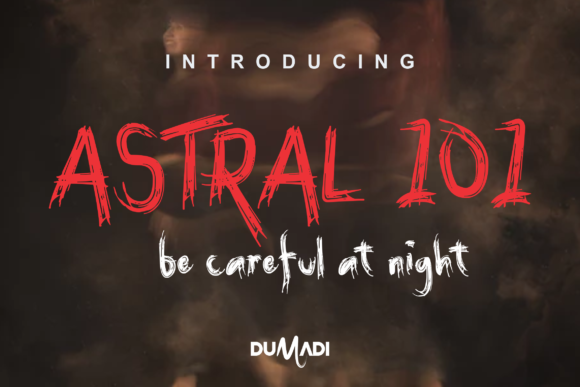
Astral 101 Font: The Spooky Display Font You Need for Your Designs
An Honest Review of Astral 101
• ✨ Spooky and atmospheric: The Astral 101 font has a unique, eerie feel that’s perfect for creating Halloween-themed designs or any project that requires a touch of horror.
• ✅ High-quality design: The font is beautifully crafted with intricate details that make it stand out from other display fonts.
• 🔥 Versatile: Despite its spooky vibe, the Astral 101 font can be used for a variety of design projects, from posters and flyers to social media graphics and more.
While the Astral 101 font is amazing, there are a few things to keep in mind:
• ⚠️ Legibility at small sizes: Like many display fonts, the Astral 101 can be a bit tricky to read at smaller sizes. It’s best used for headlines or titles rather than body text.
• 🤔 Limited use of OpenType features: While the font does have some basic OpenType features, it’s not as extensive as some other fonts on the market.
The Backstory Behind Astral 101
The Astral 101 font was inspired by the mysterious and often spooky night sky. Its creator, a passionate typographer, wanted to capture the essence of the stars and the supernatural in a font that would leave a lasting impression. With its intricate details and eerie feel, the Astral 101 font is sure to transport your audience to another world.
Q: What type of designs is the Astral 101 font best suited for?
A: The Astral 101 font is perfect for designs that require a spooky or horror-themed touch, such as Halloween-themed projects, horror movie posters, or haunted house invitations.
Q: Is the Astral 101 font available in different weights or styles?
A: The Astral 101 font is available in a single weight, but it does come with some stylistic alternates and glyphs to help you experiment with different looks.